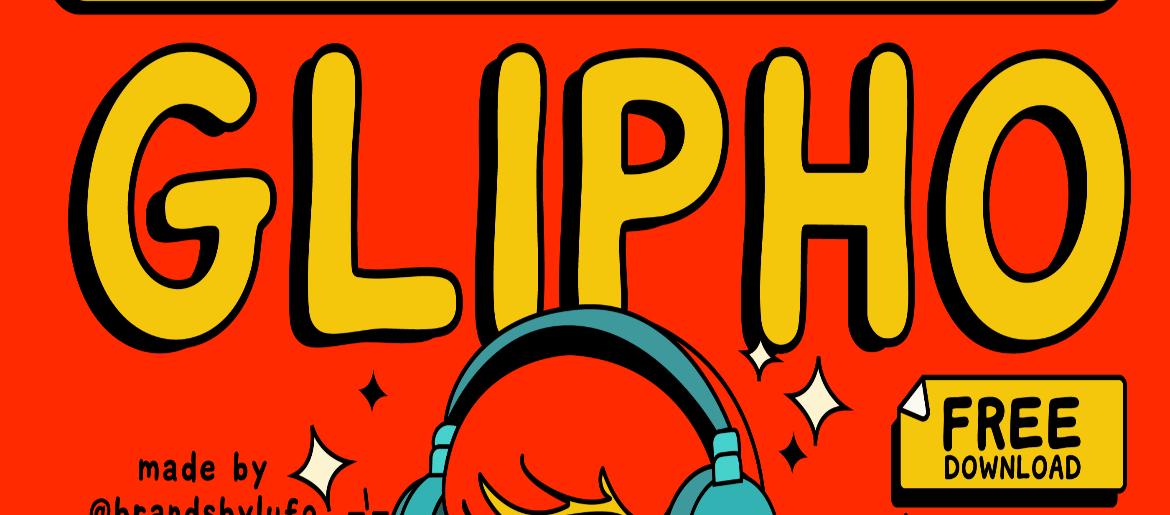
Glypho Font
Glypho Font is a free playful display typeface with a soft, rounded retro-pop feel. It is designed for branding, logos, packaging, posters, stickers, and social media graphics. Including uppercase, lowercase, numbers, and special characters, it offers cheerful personality and flexibility, making it a fun and expressive addition to modern creative projects and free fonts collections.
➤ Font Name: Glypho
➤ Designer: Lufo
➤ Style: Playful